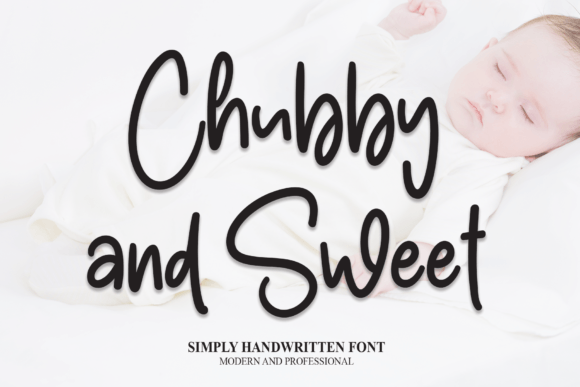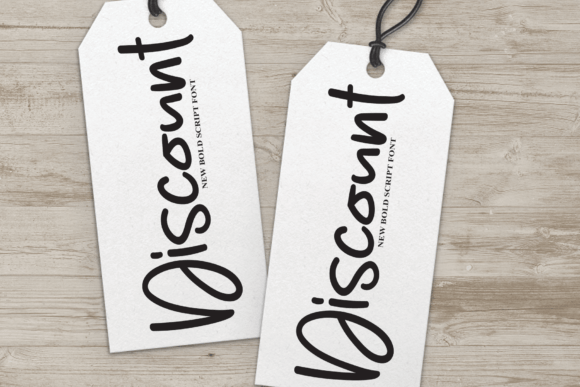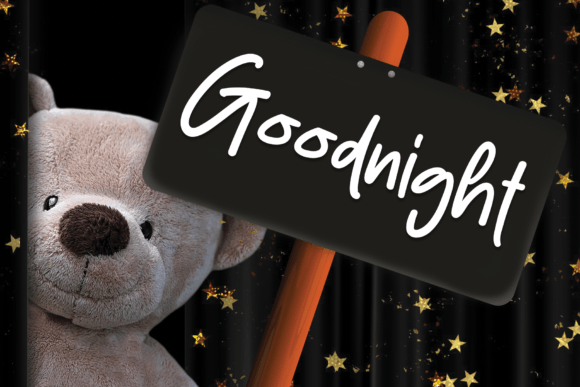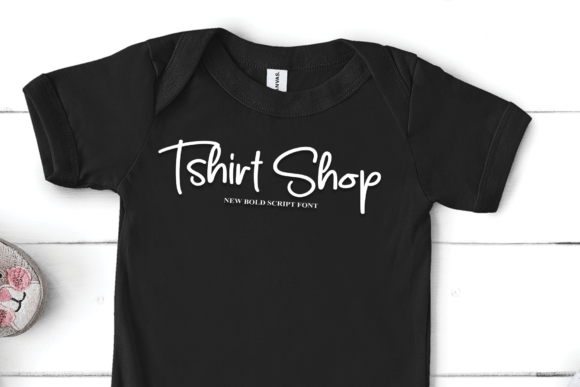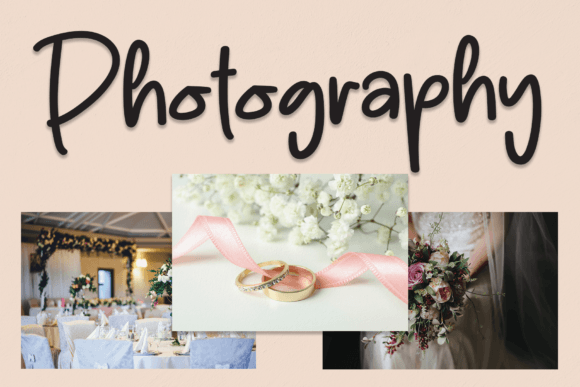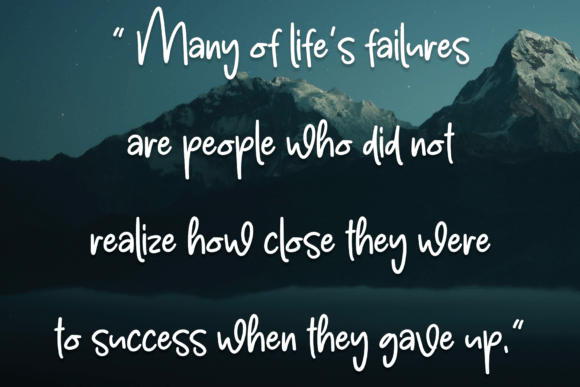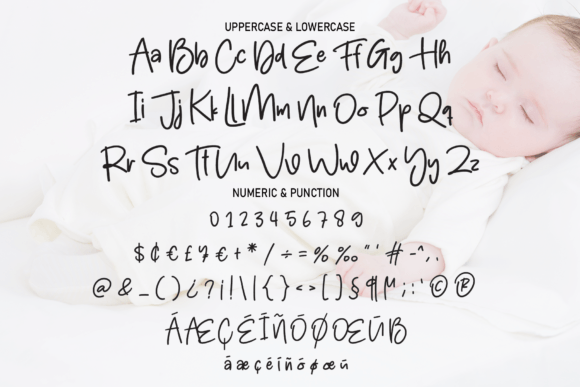
The Perfect Blend of Handwritten Charm
Have you ever found yourself in a creative flow, surrounded by endless possibilities, and suddenly, the perfect font pops into your mind? For many designers, this moment is a game-changer. It’s the moment when the entire project starts to come together, and you can envision the final result. For those who have experienced this moment, you know how thrilling it is to discover a font that perfectly captures the essence of your vision.
This is where the Chubby and Sweet Font comes in – a beautifully crafted font that exudes a sense of warmth and personality. With its latest style letters, this font is perfect for a wide range of projects, from wall displays to wedding invitations, social media post logos, and more. Its unique charm makes it a valuable asset for designers looking to add a handwritten touch to their work.
Key Features of Chubby and Sweet Font
- Font Family: Chubby and Sweet is a unique, handwritten font family designed to evoke a sense of warmth and friendliness.
- Font Size: Chubby and Sweet is available in multiple font sizes, ranging from 12pt to 72pt, making it suitable for a wide range of design projects.
- Resolution: Designed for high-resolution displays, Chubby and Sweet font is perfect for use in digital media, including websites, social media, and mobile apps.
- Unique Characteristics: The font features a unique, hand-drawn style with subtle imperfections, giving it a personal and charming touch.
- Language Support: Chubby and Sweet font supports a wide range of languages, including Latin, Cyrillic, and Greek alphabets, making it a versatile choice for global design projects.
Designer Review: Chubby and Sweet Font
Overall, I think the Chubby and Sweet font is a lovely addition to any design project. It’s a clear winner when it comes to creating a playful and whimsical atmosphere. ✨ The font’s unique, rounded shapes and cursive flair make it perfect for designs that need a bit of personality.
Some of the standout features of this font include:
- Its versatility in use – from titles to body text, Chubby and Sweet works well in a variety of applications.
- Its ability to add a touch of warmth and approachability to designs.
However, there are some limitations to keep in mind:
- ⚠️ The font may be too cursive for some designs, potentially making it difficult to read in certain contexts.
- ⚠️ It may not be the best choice for designs that require a more modern or minimalist aesthetic.
In conclusion, while Chubby and Sweet may not be the perfect fit for every design project, it’s certainly a great option to consider when looking for a font that adds a bit of charm and personality. With its unique style and versatility, I think it’s definitely worth checking out.
Tips for Getting the Most Out of Chubby and Sweet Font
Use Chubby and Sweet Font for:
- Birthday invitations and party decorations.
- Food and dessert labels.
- Children’s book illustrations.
Experiment with different font sizes and styles to achieve a playful and whimsical look.